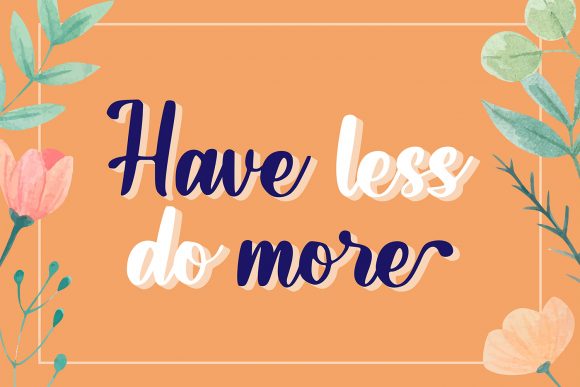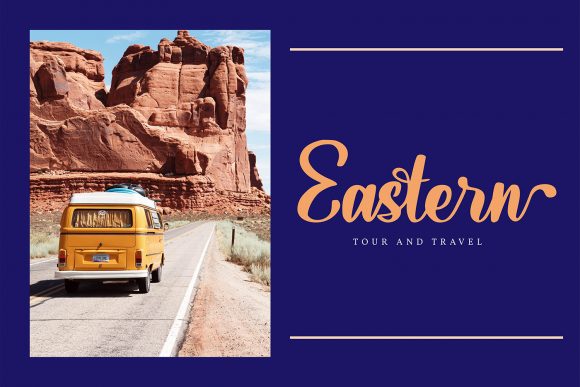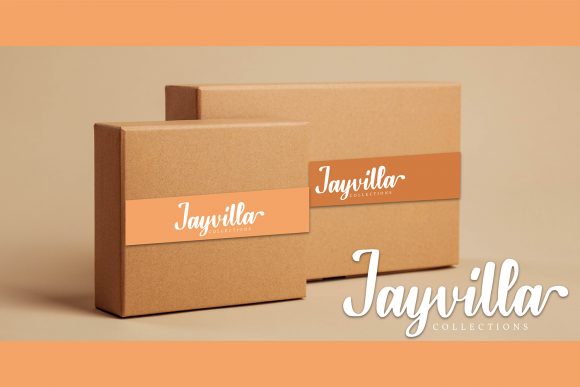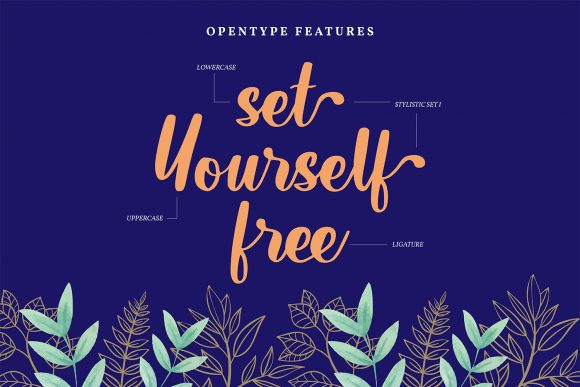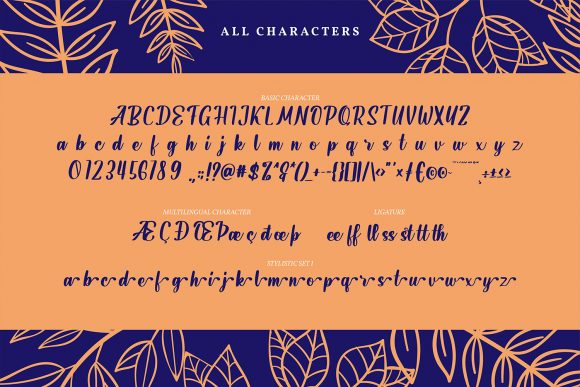
Unlock the Creative Potential of Your Designs
Have you ever stared at a blank page, feeling the weight of a project’s expectations? The cursor blinks, taunting you to start, but the ideas just won’t flow. It’s in these moments that we turn to our trusty fonts, searching for the perfect spark to ignite our creativity.
That’s where the Areolla Font comes in – a modern and clean handwritten font that’s sure to brighten up your designs. With its versatility and neat vibe, this font is a game-changer for any project. Whether you’re a seasoned designer or just starting out, the Areolla Font is an invaluable tool that will help you bring your ideas to life.
As a PUA encoded font, you’ll have access to all the glyphs and swashes, allowing you to experiment with endless variations and create truly unique designs. So why settle for ordinary when you can have extraordinary with the Areolla Font?
• Font Size: The font comes in a single weight, making it ideal for projects where a clean and simple design is required.
• Unique Characteristics: The font features a unique, hand-drawn design with subtle irregularities, giving it a human touch and making it stand out from more traditional fonts.
• Font Width: The font has an average width, making it suitable for body text, headings, and titles, and allowing for easy reading and comprehension.
Designer Review: Areolla Font
Overall, I’m quite impressed with the Areolla Font. It’s a unique blend of modern and elegant styles that can easily elevate any design project. ✨ The font’s clean lines and minimalist aesthetic make it perfect for corporate, tech, or fashion brands that want to convey a sense of sophistication.
One of the things that stood out to me is the Areolla Font’s versatility. It’s available in a range of weights and styles, from light and airy to bold and dramatic. ✨ This makes it easy to use across different design applications, from headlines to body text.
• Unique blend of modern and elegant styles
• Available in a range of weights and styles
• Clean lines and minimalist aesthetic
• Perfect for corporate, tech, or fashion brands
• Some characters may appear slightly inconsistent in terms of line width
• May not be as readable in small font sizes
• Not as extensive a character set as some other fonts
Overall, I’d give the Areolla Font 4 out of 5 stars. While it’s not perfect, its unique style and versatility make it a great addition to any designer’s toolkit. With a little tweaking, I think it could be a truly exceptional font.
The Areolla font is commonly used in:
• Graphic design projects, such as logos and brochures.
• Typography projects, such as posters and flyers.
• Web design projects, such as websites and social media graphics.